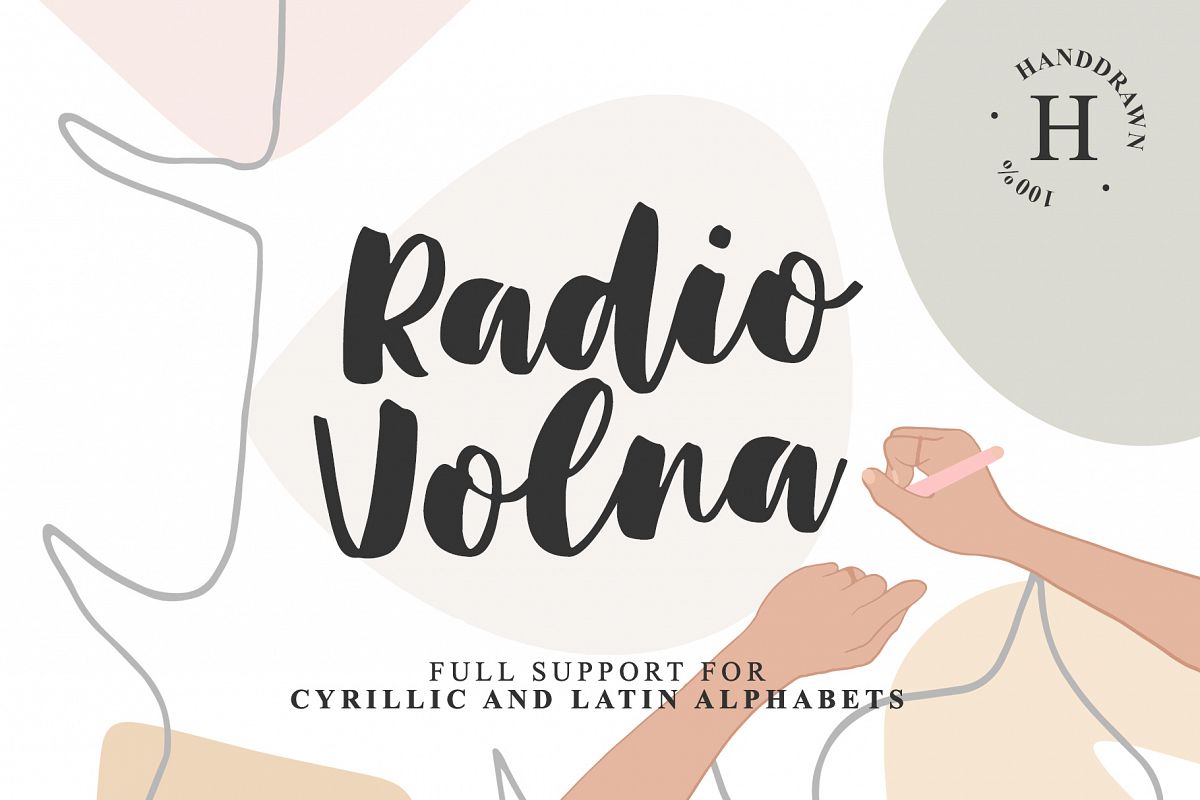
RADIO VOLNA handwritten font
Hello, friends. This is my new font, classic calligraphy with a thick brush. The font is super versatile and suitable for any project. You want to post on instagram? The menu in the cafe? A banner or sign on the website? IT'S EASY
And one more thing, this font fully supports Cyrillic
Здравствуйте, друзья. Это мой новый шрифт, классическая каллиграфия толстой кистью. Шрифт супер универсальный и подойдёт для любых проектов. Хочешь пост в инстаграм? Меню в кафе? Баннер или надпись на сайт? ЛЕГКО
И еще одна фишка, этот шрифт полностью поддерживает кириллицу
• Support ALL European Languages